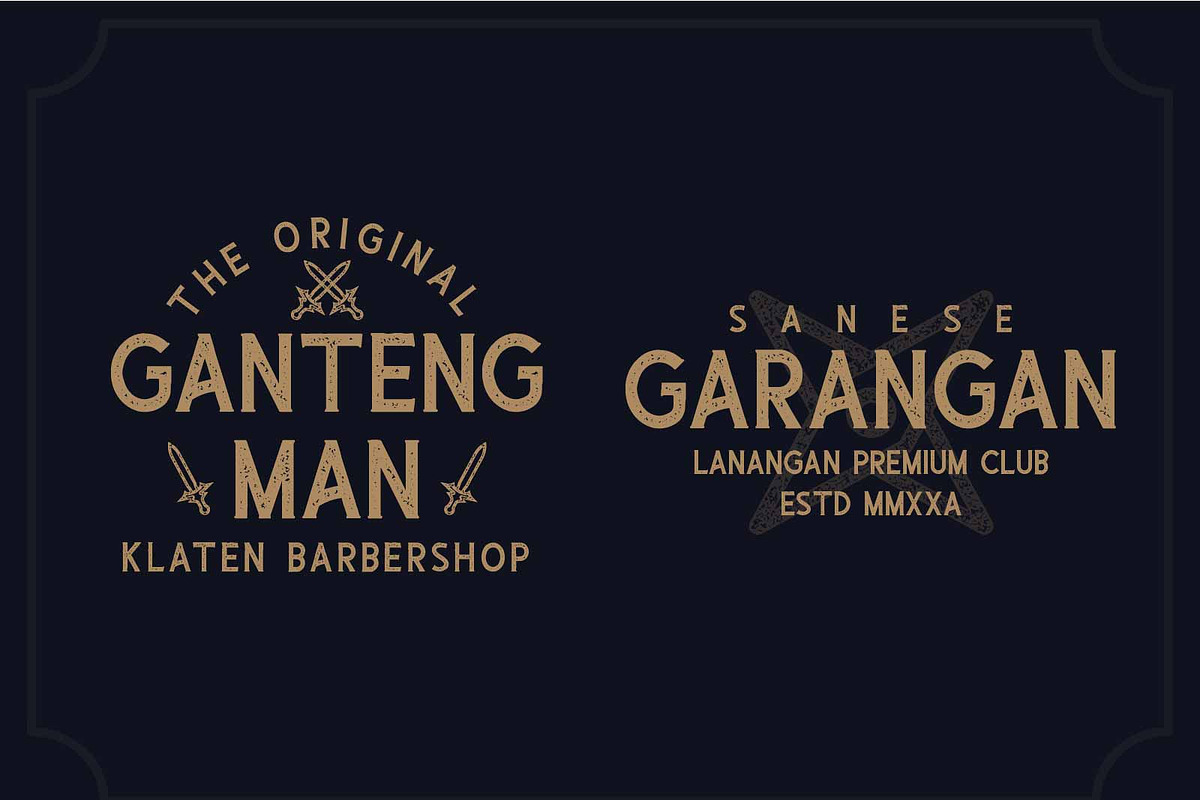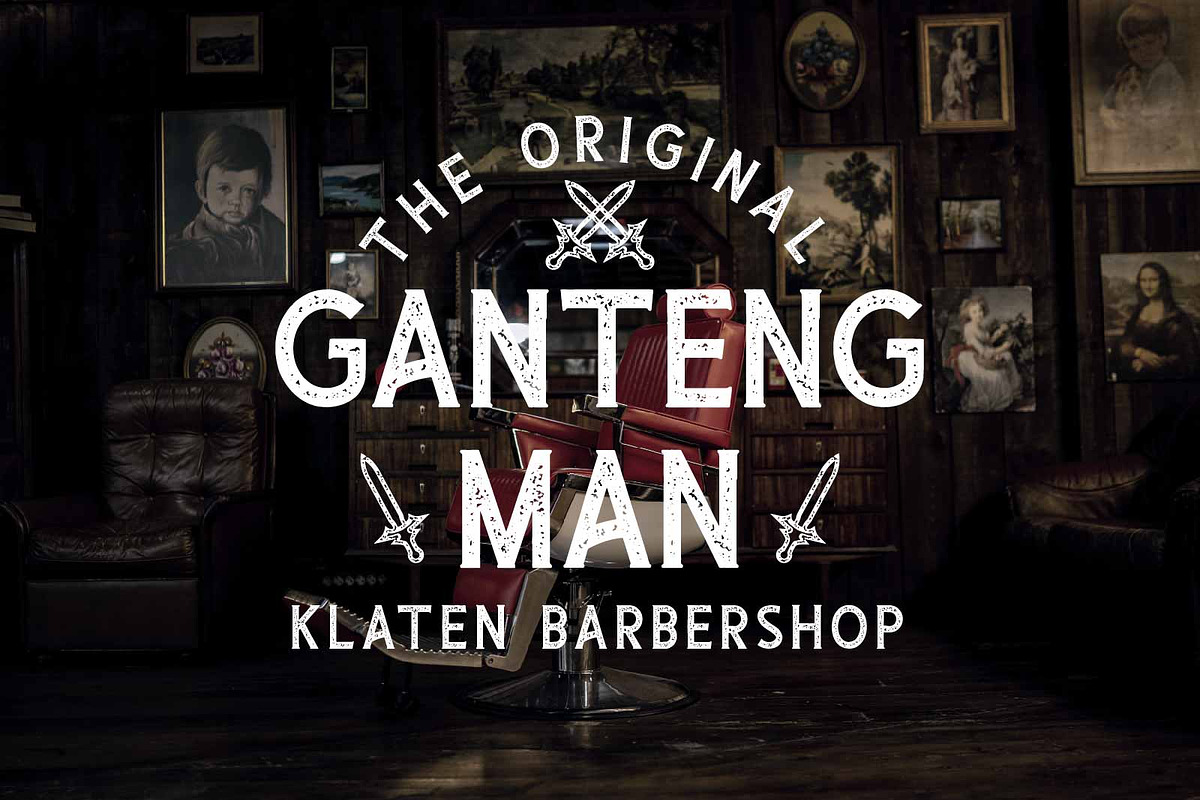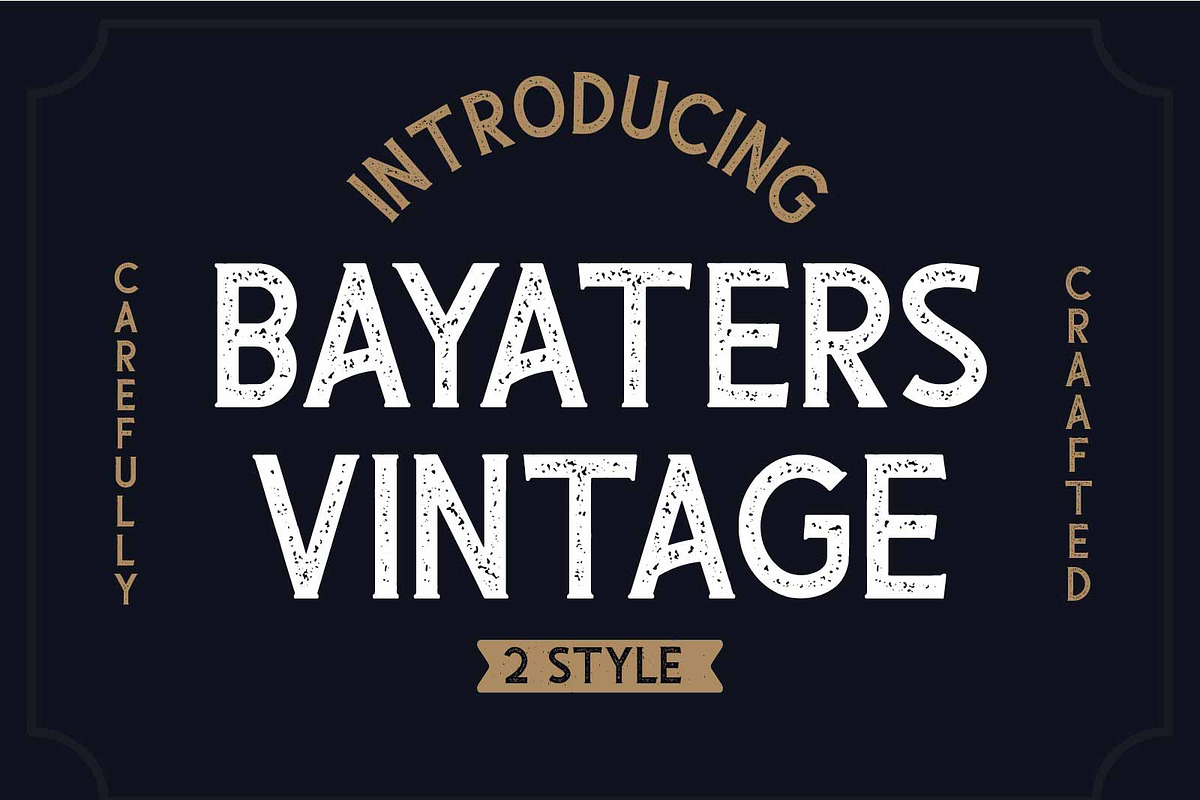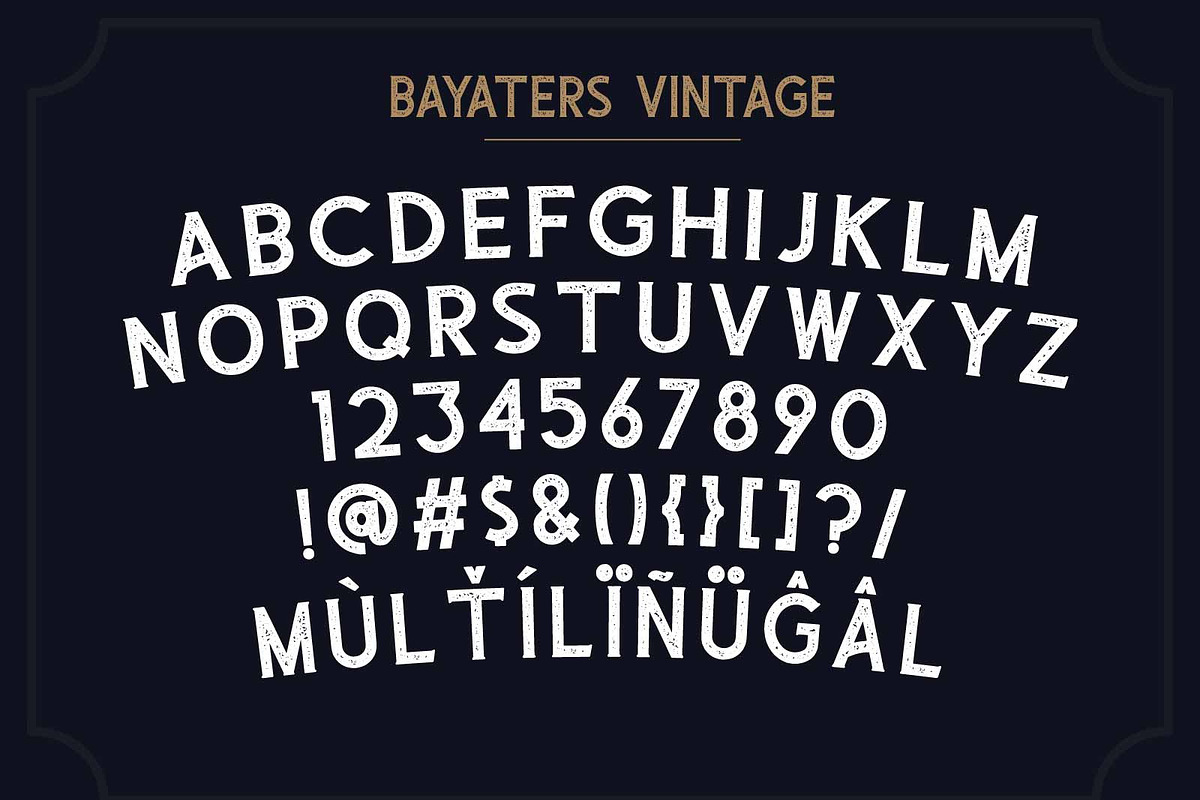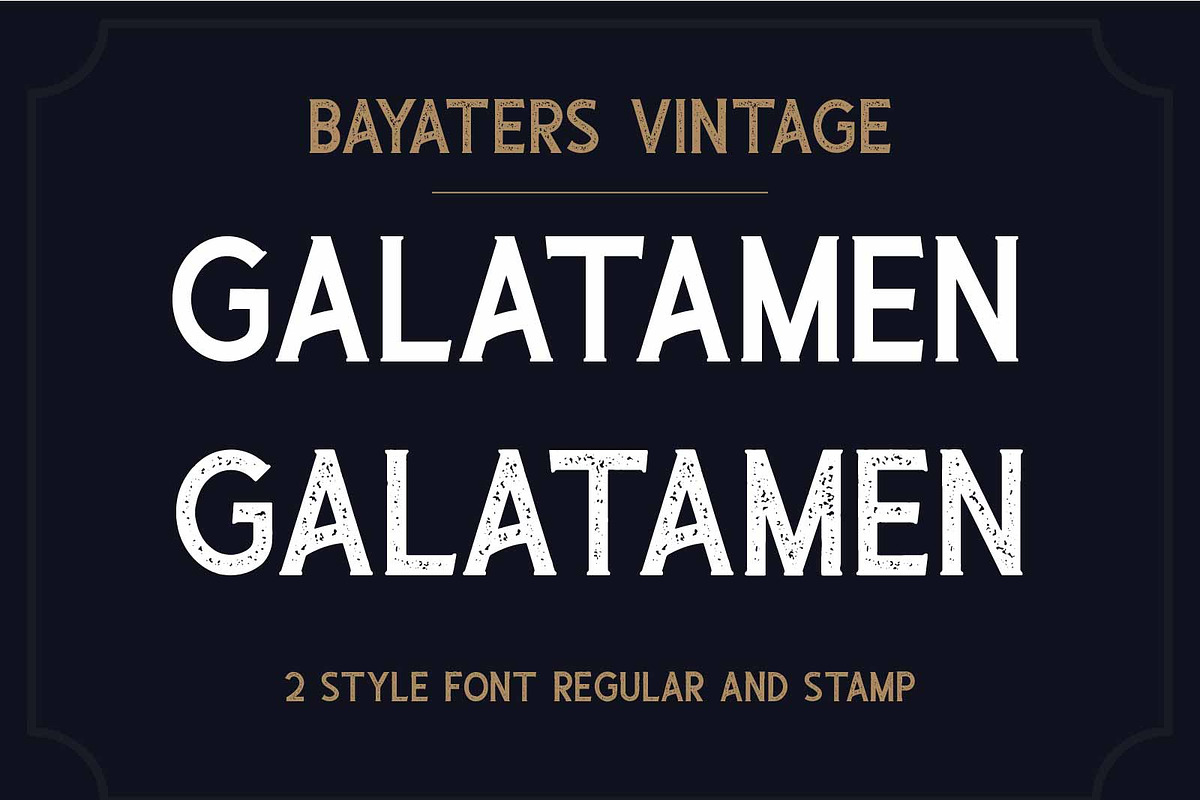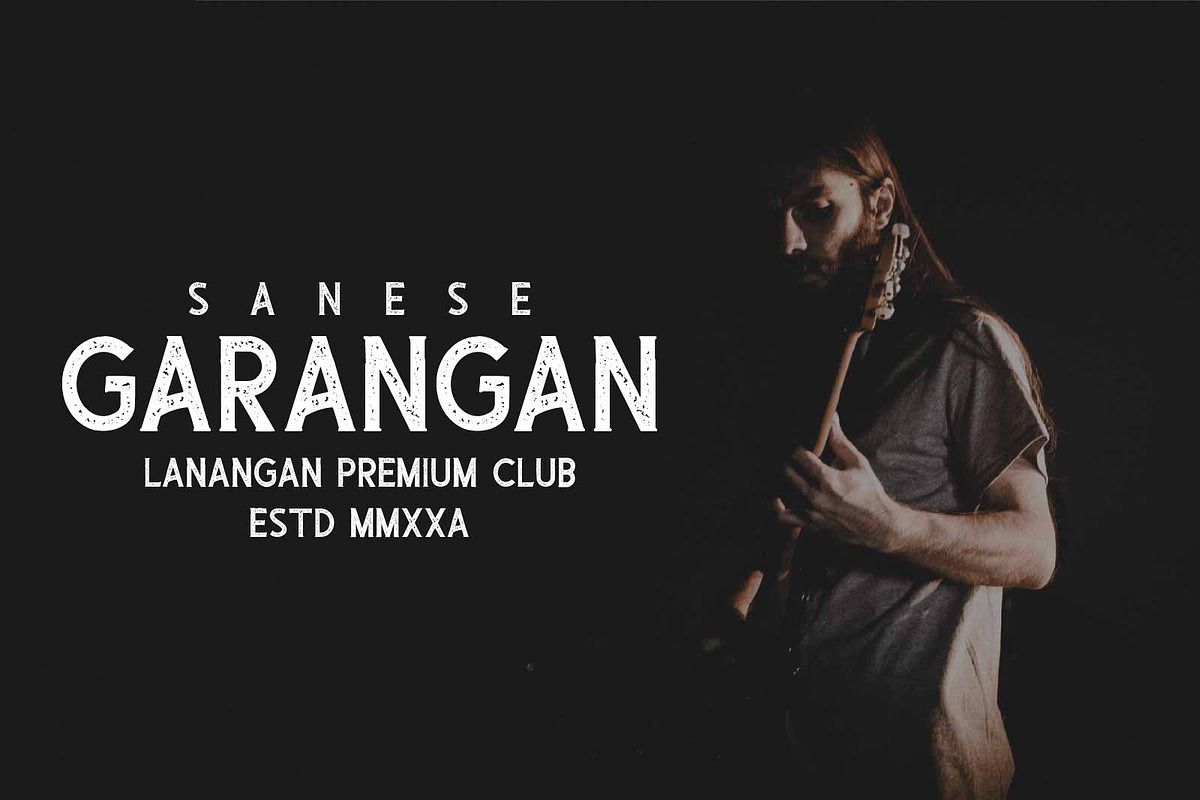
Bayaters | Vintage Font
Bayaters is a simple, vintage styled, bold display font. Simple but with a strong visual effect, this font will instantly make your creation more appealing than any others.